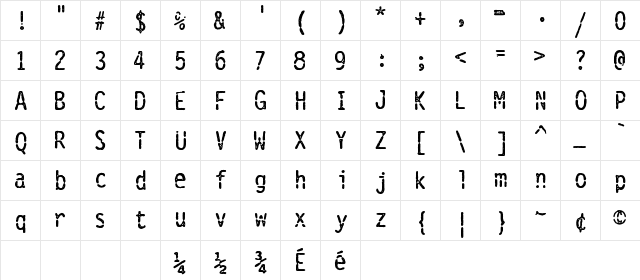
Vanthian Ragnarok Regular
Designer: S. John Ross
Complete Vanthian Ragnarok Regular glyph index. Displaying only characters natively supported by Vanthian Ragnarok Regular font.
Design Context for Vanthian Ragnarok
Vanthian Ragnarok is a composed and adaptable typeface that performs quietly and consistently across a wide range of design contexts.